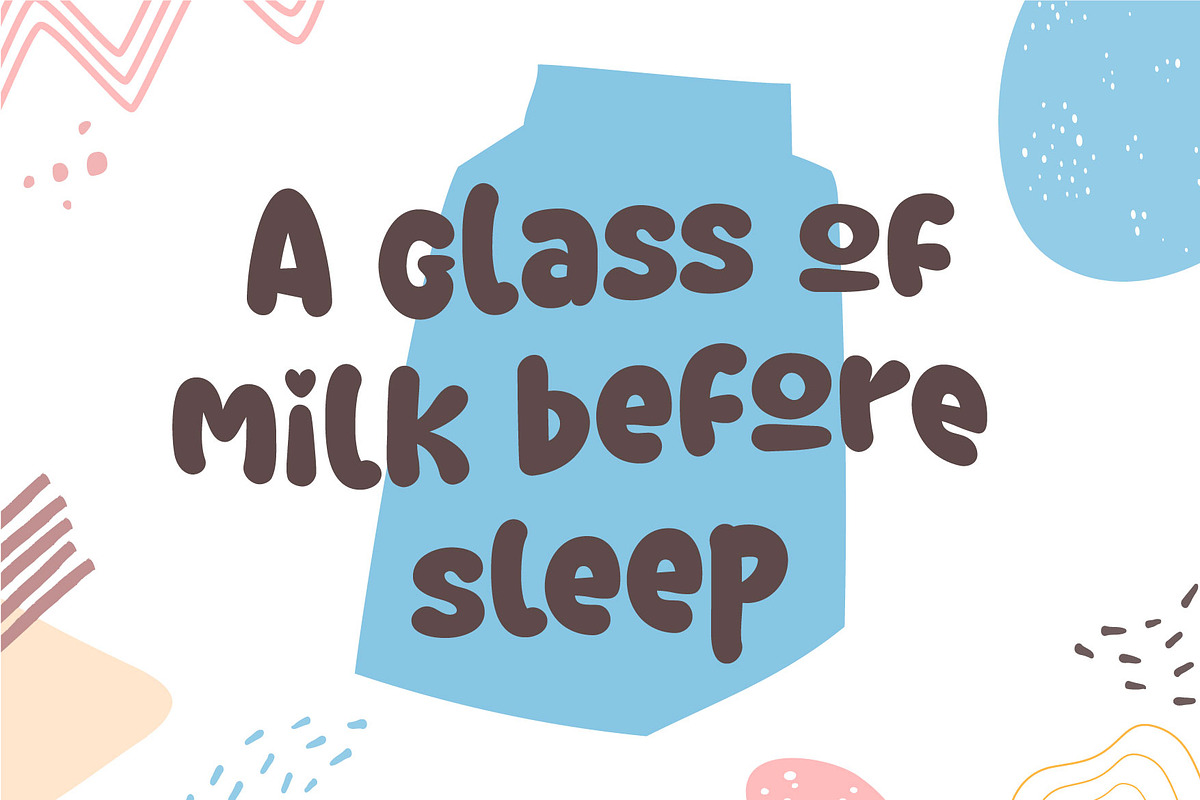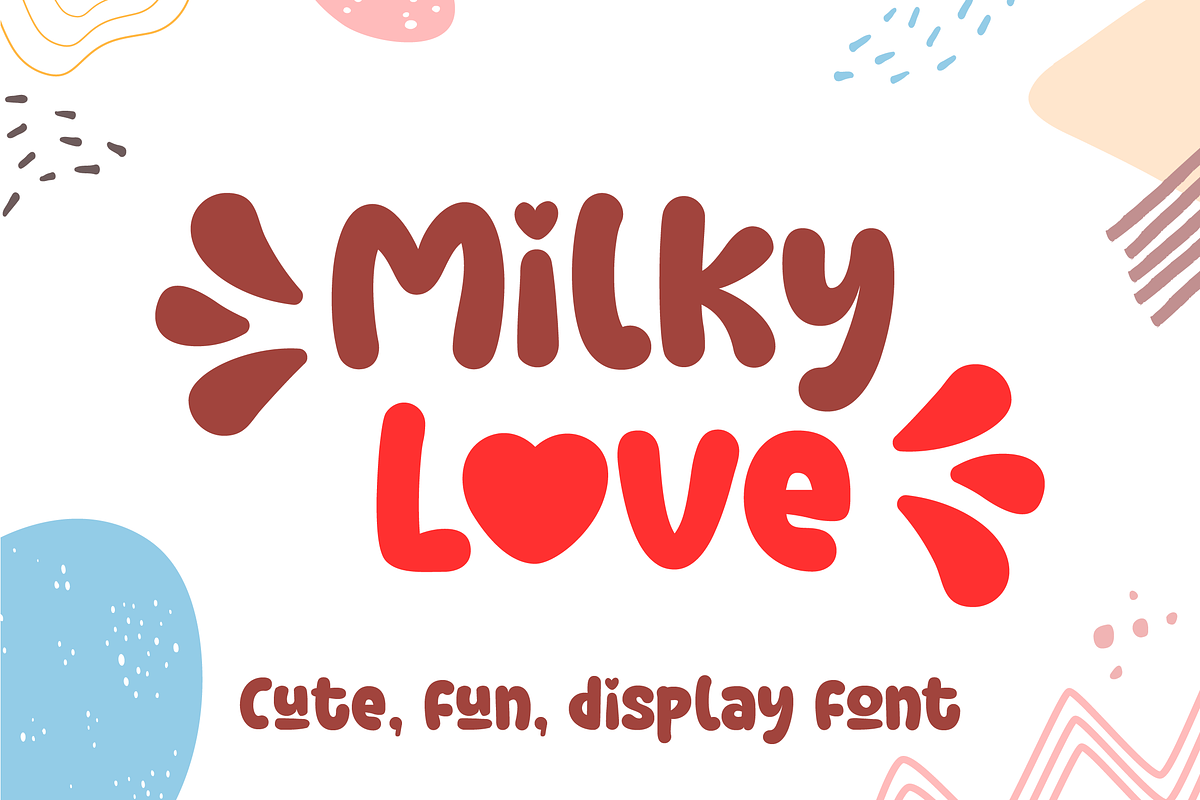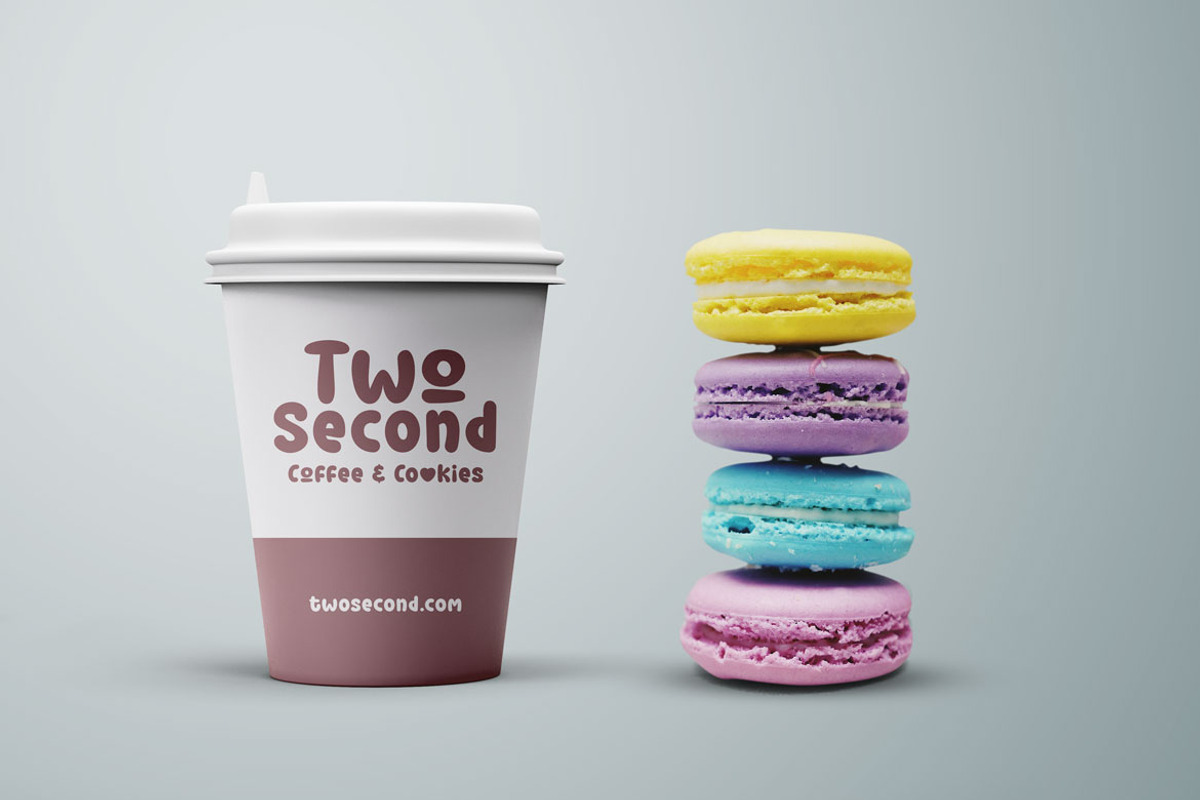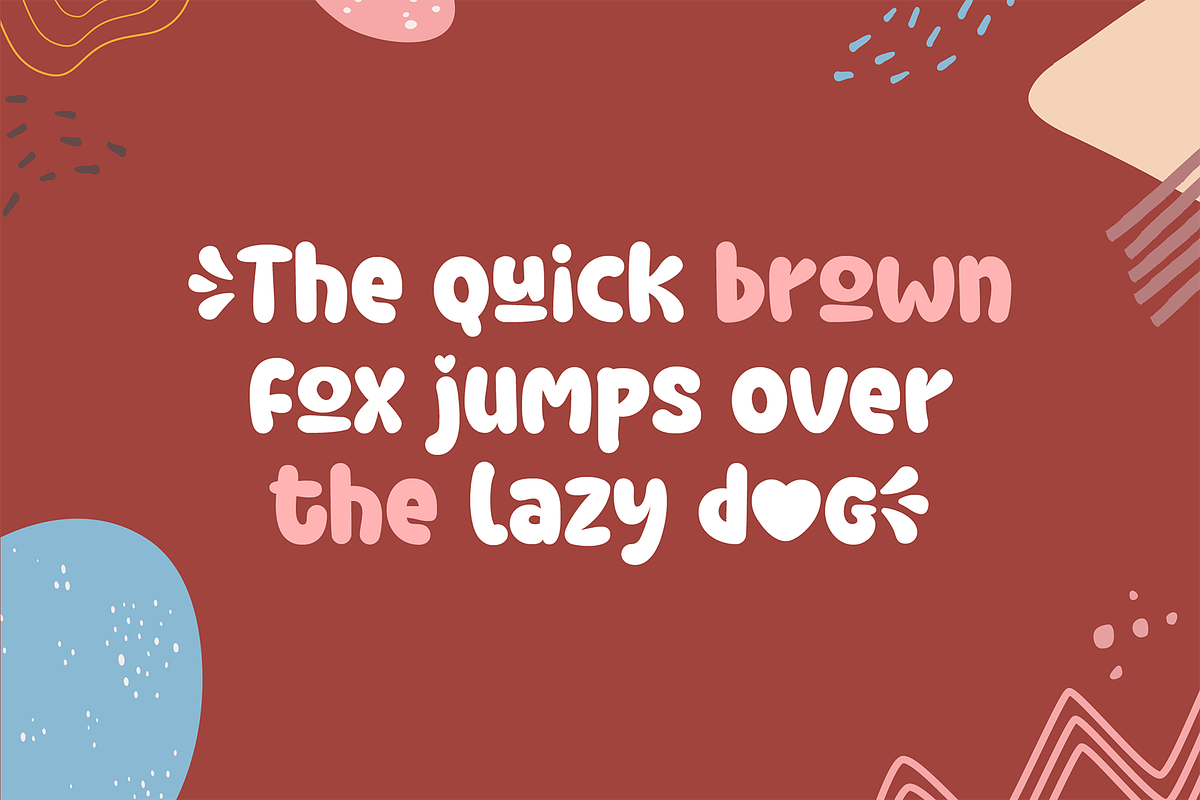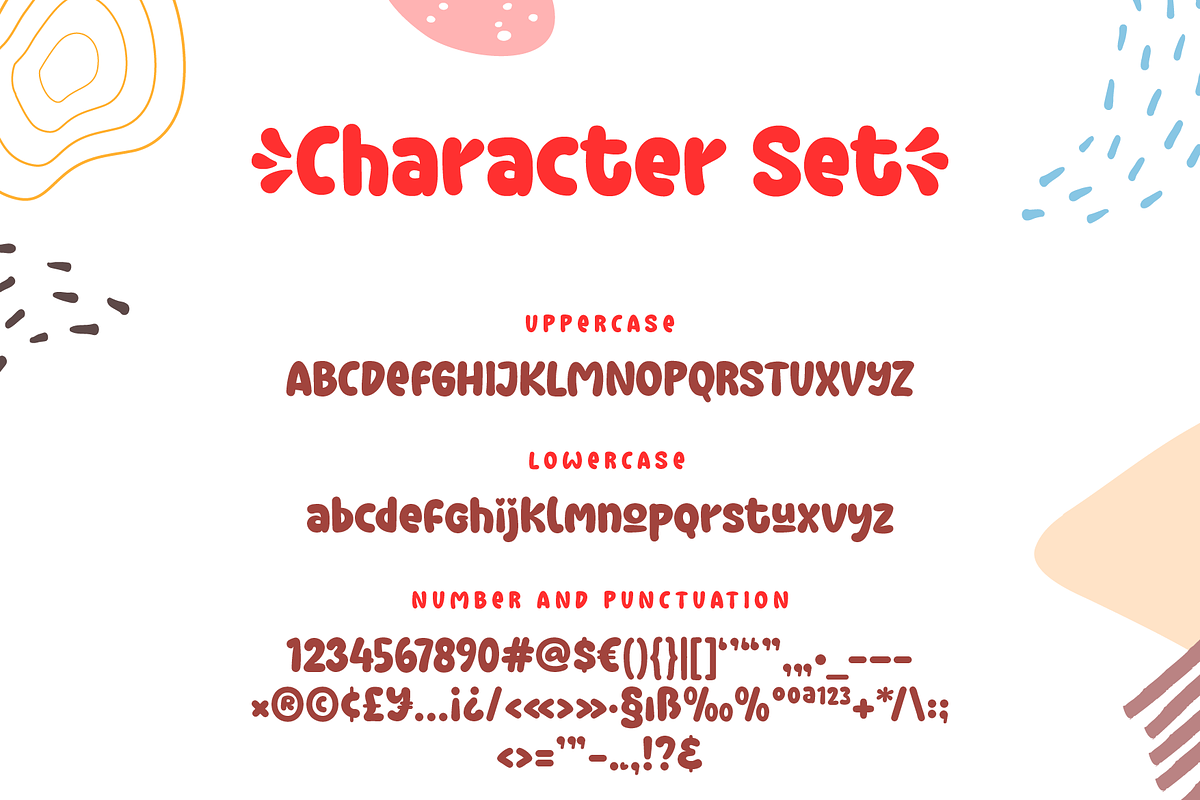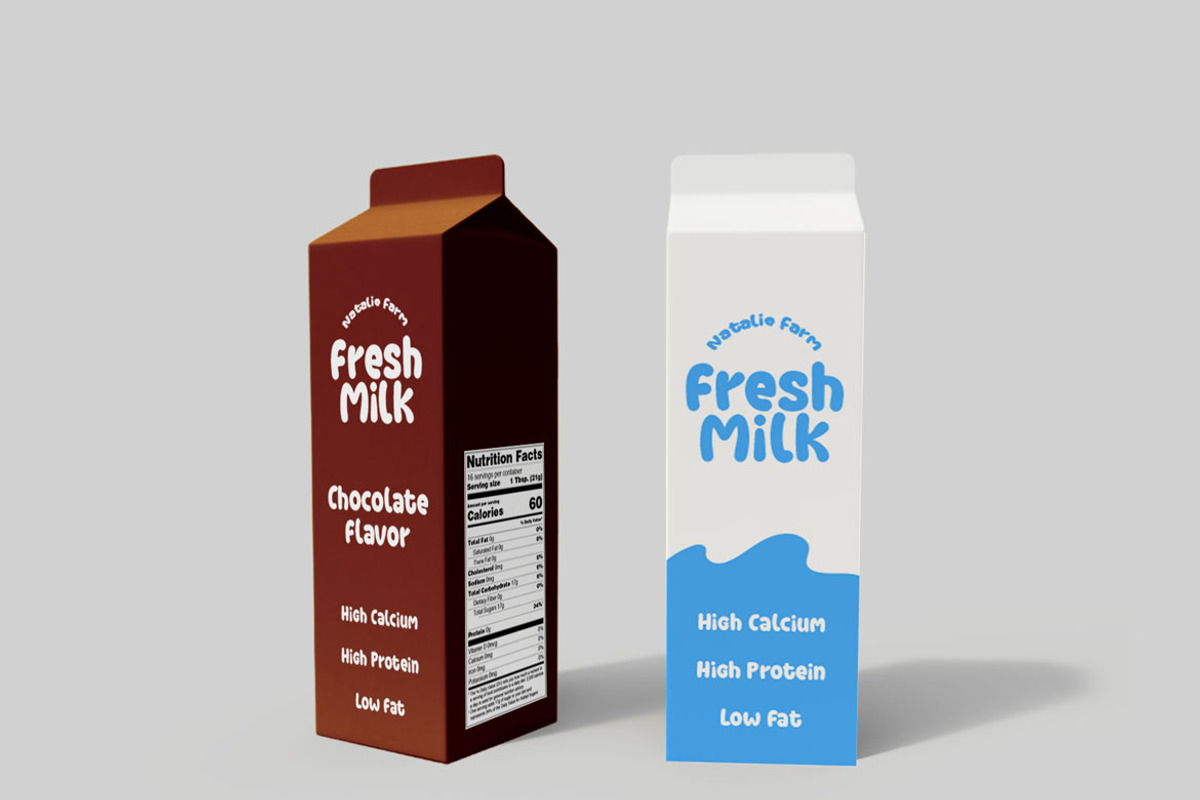
Milky Love Cute Display Font
Milky Love is a cute and fun display font. It features a unique style and will add a friendly feel to your upcoming projects. Get inspired by its authentic feel and use it to create fun social media post, beautiful poster, cheerful greeting cards and many more!greeting cards.
Milky Love Cute Display Font by Kreativ Space fits naturally into Branding, posters, packaging, typography.